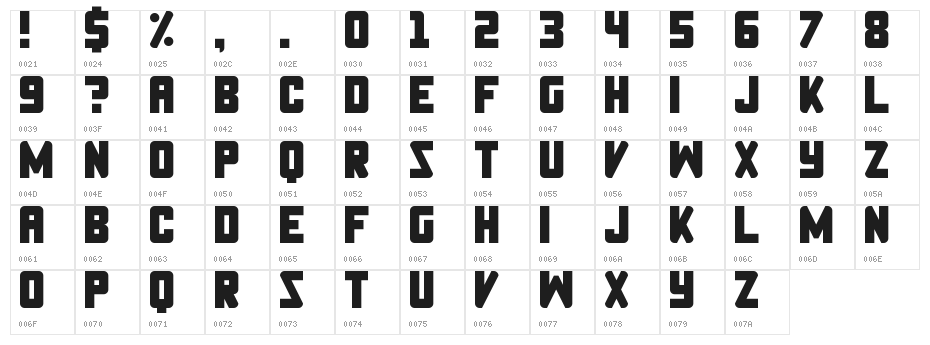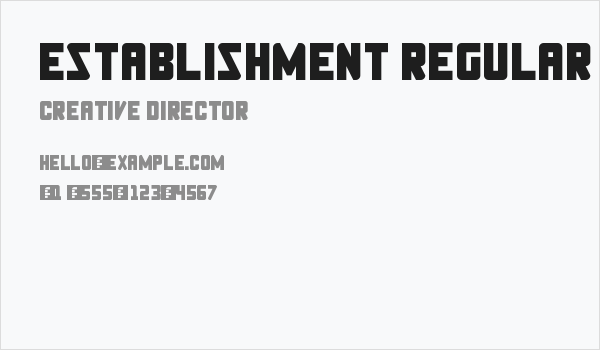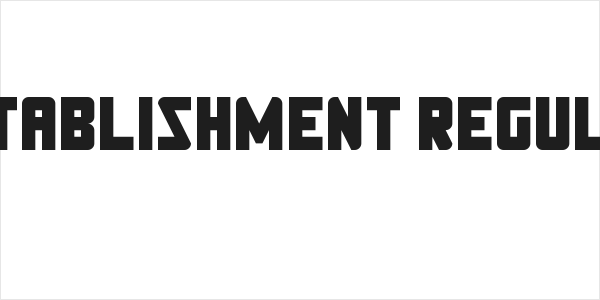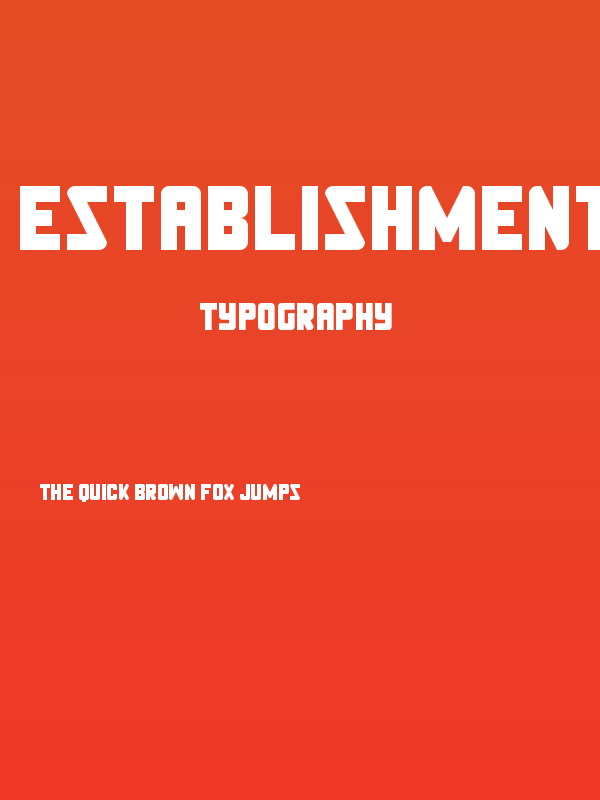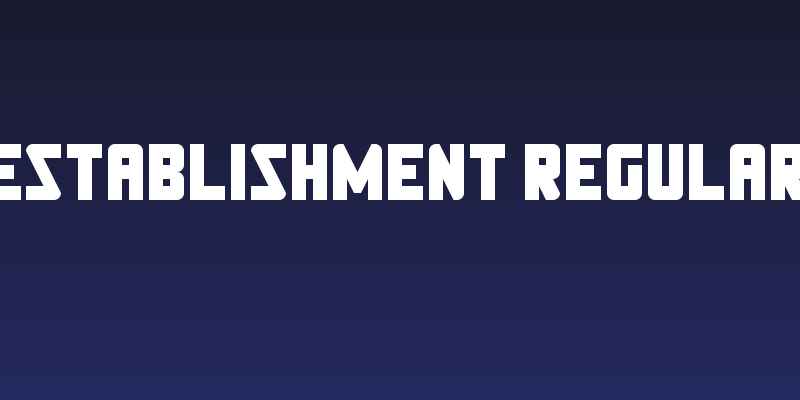
Establishment Regular Font
✎ Thick
| Vorgeschlagene Projekte | Ideal for branding, posters, headlines, and signage where a strong visual impact is needed. |